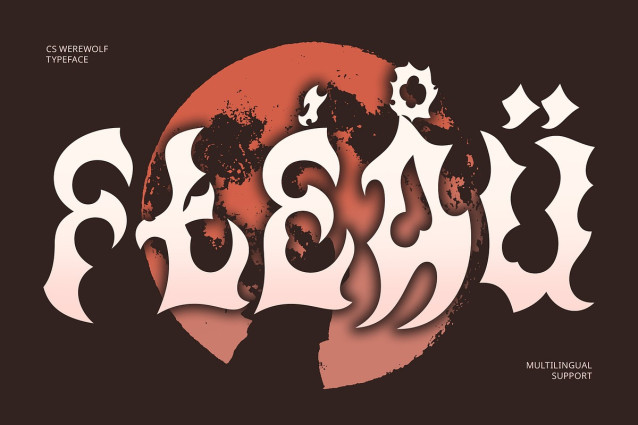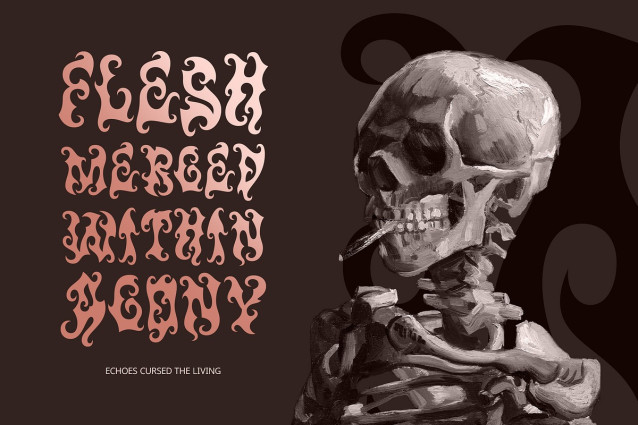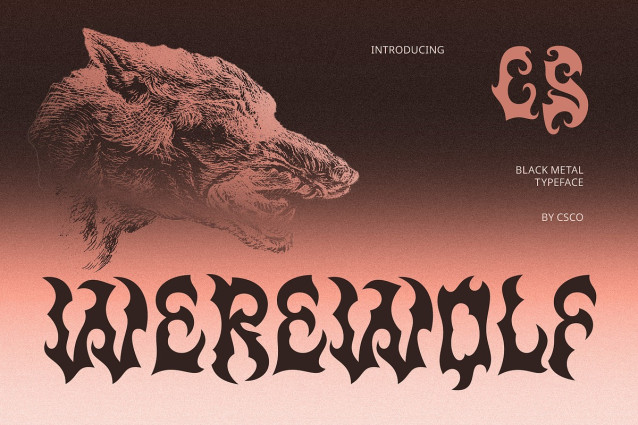
CS Werewolf Font
CS Werewolf is a bold display font that captures the raw essence of black metal culture through jagged, aggressive letterforms and distorted, branching strokes. Inspired by classic metal band typography, its chaotic structure delivers an intense and haunting visual identity.
Mysterious Aesthetic for a Dramatic Impact With its eerie and violent forms, CS Werewolf exudes mystery and menace. The unpredictable, spiked contours give each letter a wild and sinister feel, enhancing the drama and depth of any visual it inhabits. It’s perfect for projects that demand a sense of the unknown, the forbidden, or the extreme—setting the mood with one glance.
Ideal for Metal Posters and Extreme Branding CS Werewolf thrives in designs meant to scream rather than whisper—perfect for metal concert posters, underground zines, album covers, or any branding project seeking an intense visual punch. Its unapologetic style makes it a go-to choice for designers looking to evoke a rebellious and high-energy atmosphere.
Dark, Bold, and Untamed Whether you’re designing for black metal bands, horror-themed projects, or avant-garde branding, CS Werewolf delivers a ferocious blend of mystery and bold expression. It’s more than a font—it’s a visual roar that brings edge, emotion, and extreme attitude to your designs.